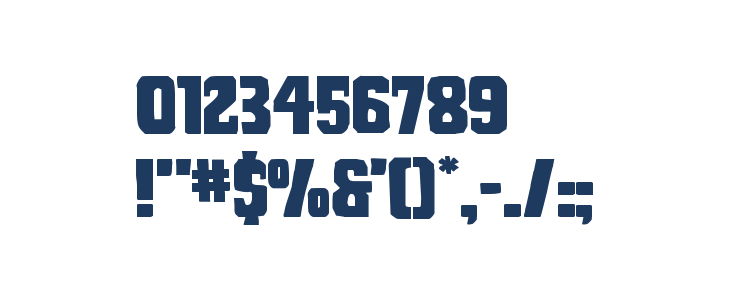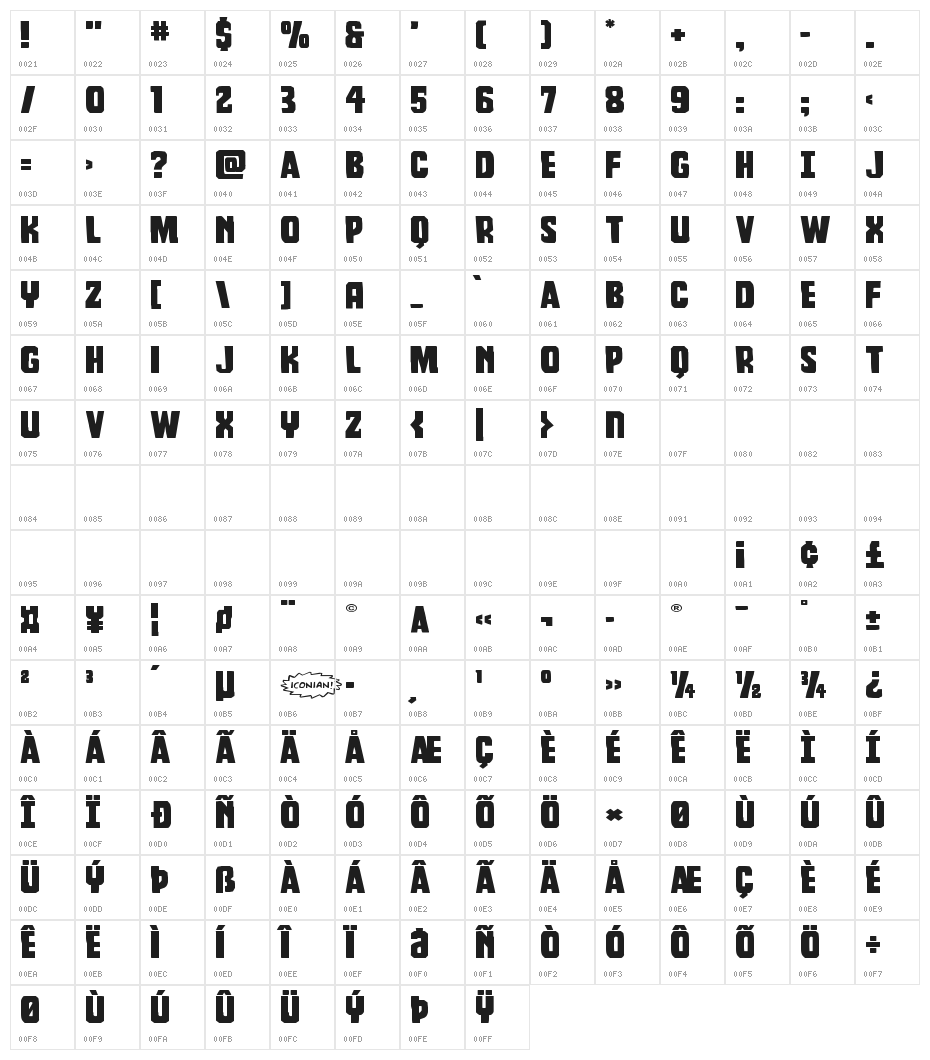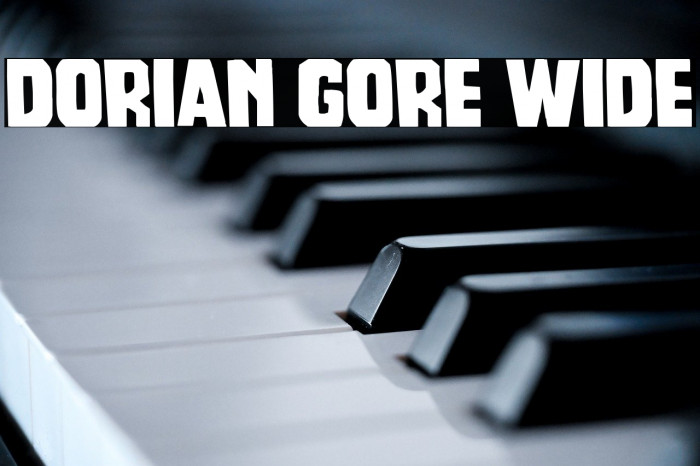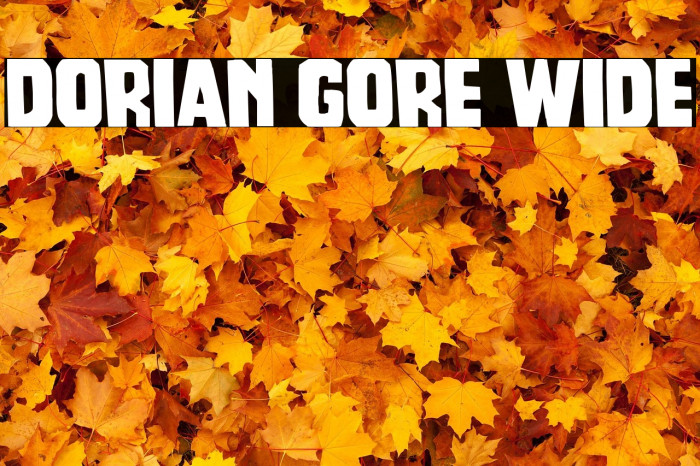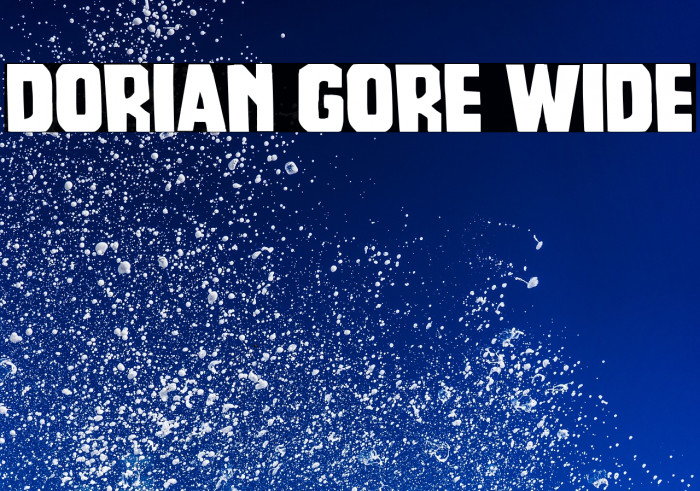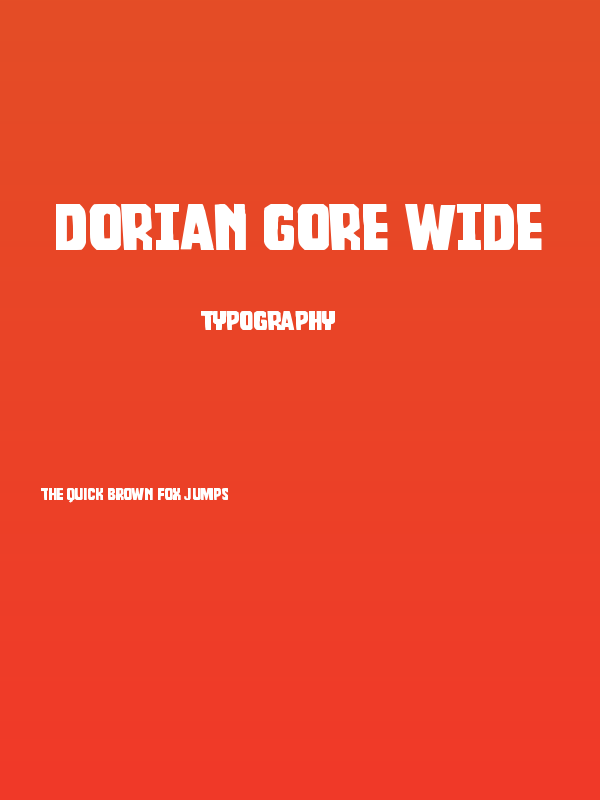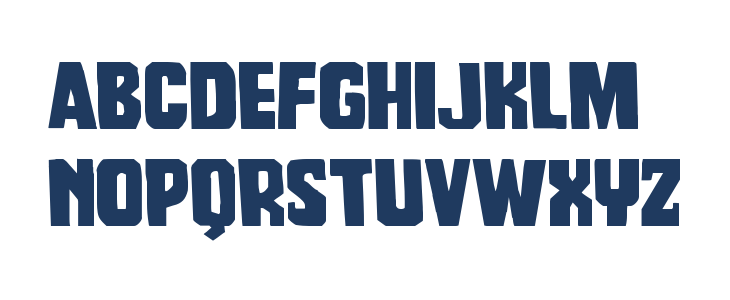
Dorian Gore Wide Font
Dorian Gore Wide Description
This font features a bold and impactful design with wide, blocky characters that command attention. The uppercase letters are particularly striking, with a strong presence that makes them ideal for headlines or titles. The numbers and special characters maintain the same boldness, ensuring consistency across all uses. The style is reminiscent of vintage poster fonts, yet it carries a modern twist with its clean lines and uniformity. The wide character width adds to its commanding appearance, making it suitable for designs that require a strong visual impact.
| Proposed Projects | Perfect for posters, headlines, branding materials, and any design that requires a strong, bold statement. |